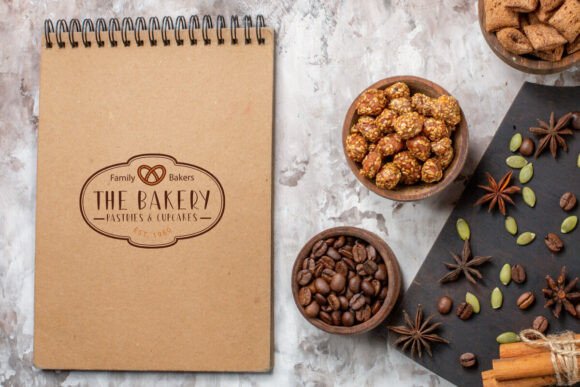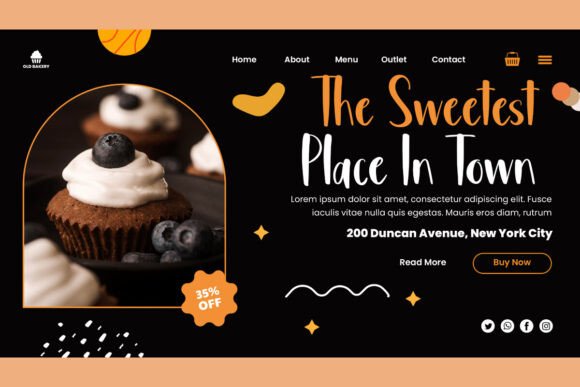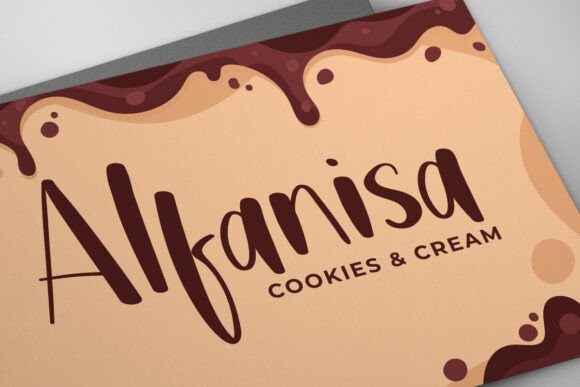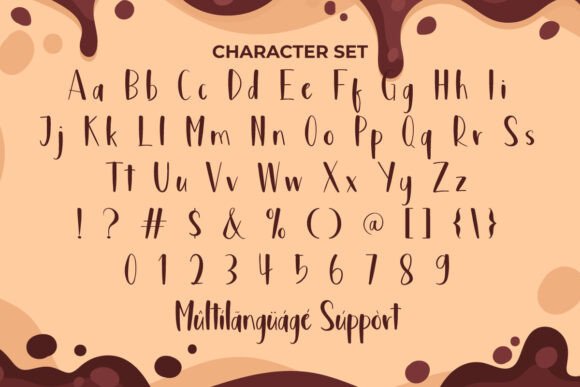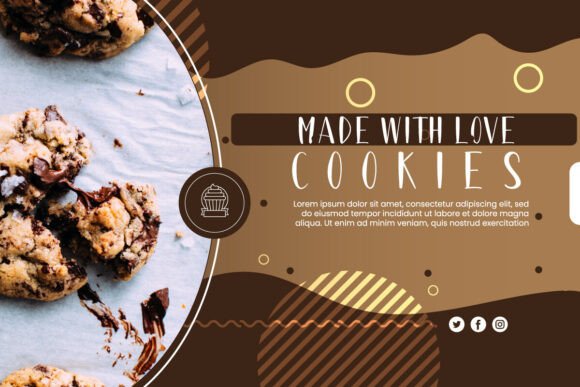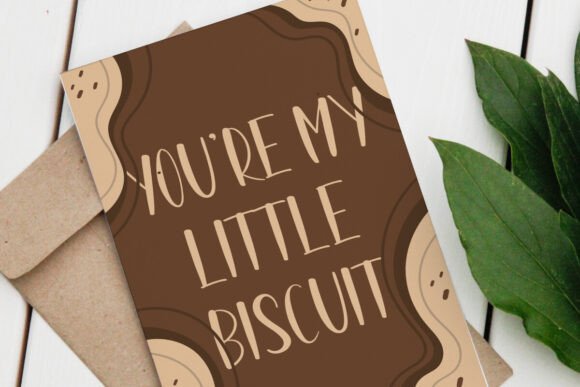
The Sweetest Font You’ll Ever See: A Deep Dive into Biscuit Cereal Font
Have you ever been in the middle of a design project, and suddenly, you’re stuck on finding the perfect font? I recall a recent experience where I was working on a branding project for a bakery, and I just couldn’t find a font that captured the sweet and playful vibe I was going for. That’s when I stumbled upon Biscuit Cereal Font, and let me tell you, it’s been a game-changer!
First Impressions: A Sweet Display Font
Biscuit Cereal Font is a sweet display font that brings a handcrafted, personal touch to any design project. Its unique charm is inspired by the theme of sweet food, making it perfect for designs that require a natural and carefree feeling. This font is versatile and can complement a wide range of designs, including blogs, brand identity, brochures, business cards, and much more!
Honest Review: The Good and the Quirks
So, what do I love about Biscuit Cereal Font? 🤔 Here are a few highlights:
• ✨ Unique and playful design that’s perfect for creative projects
• ✅ Handcrafted feel that adds a personal touch to designs
• 💕 Wide range of uses, from bakery branding to fashion designs
• 🎉 Easy to read and understand, even in smaller font sizes
As for quirks or limitations, here are a few things to keep in mind:
• ⚠️ Some letters may have limited alternates, which can be a bit restrictive
• 🤔 May not be the best fit for very formal or corporate designs
The Designer Inspiration Behind Biscuit Cereal Font
The story behind Biscuit Cereal Font is one of passion and creativity. The designer, inspired by the joy of sweet treats, set out to create a font that would capture the essence of playfulness and whimsy. With a keen eye for detail and a love for typography, the designer crafted a font that’s both unique and versatile.
Q: What type of designs is Biscuit Cereal Font best suited for?
A: Biscuit Cereal Font is perfect for designs that require a playful, carefree feel, such as bakery branding, fashion designs, and creative projects.
Q: Is Biscuit Cereal Font easy to read?
A: Yes, Biscuit Cereal Font is designed to be easy to read, even in smaller font sizes.
In conclusion, Biscuit Cereal Font is a sweet and versatile font that’s perfect for designers, crafters, and creative hobbyists. With its unique charm and handcrafted feel, it’s sure to add a personal touch to any design project. So go ahead, give it a try, and see how it can elevate your designs to the next level!